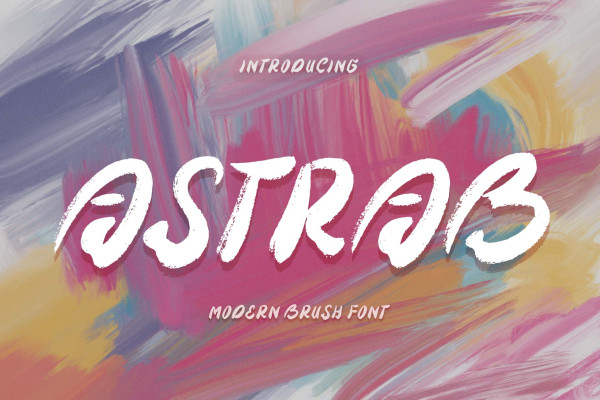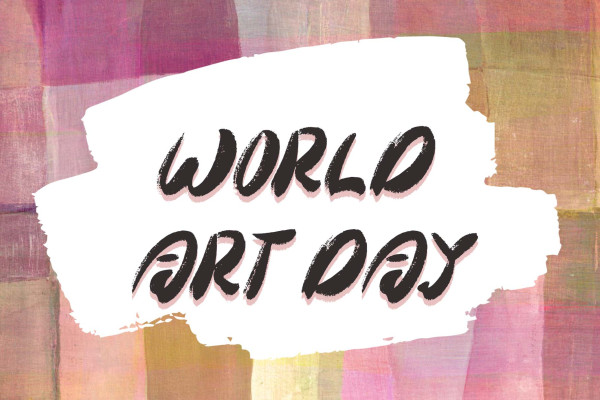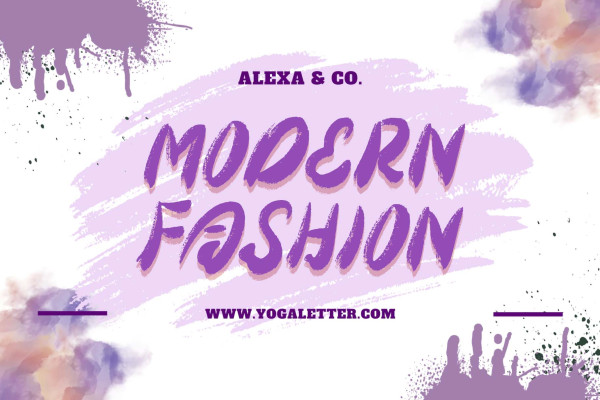
Astrab Font
Astrab Font is a very elegant modern brush font. This font is equipped with uppercase, lowercase, numerals, punctuation, and multilingual support. It is suitable for logos, banners, posters, prints, branding, stickers, business branding, svg, kdp, Christmas, graduation, 4th of July, and others.